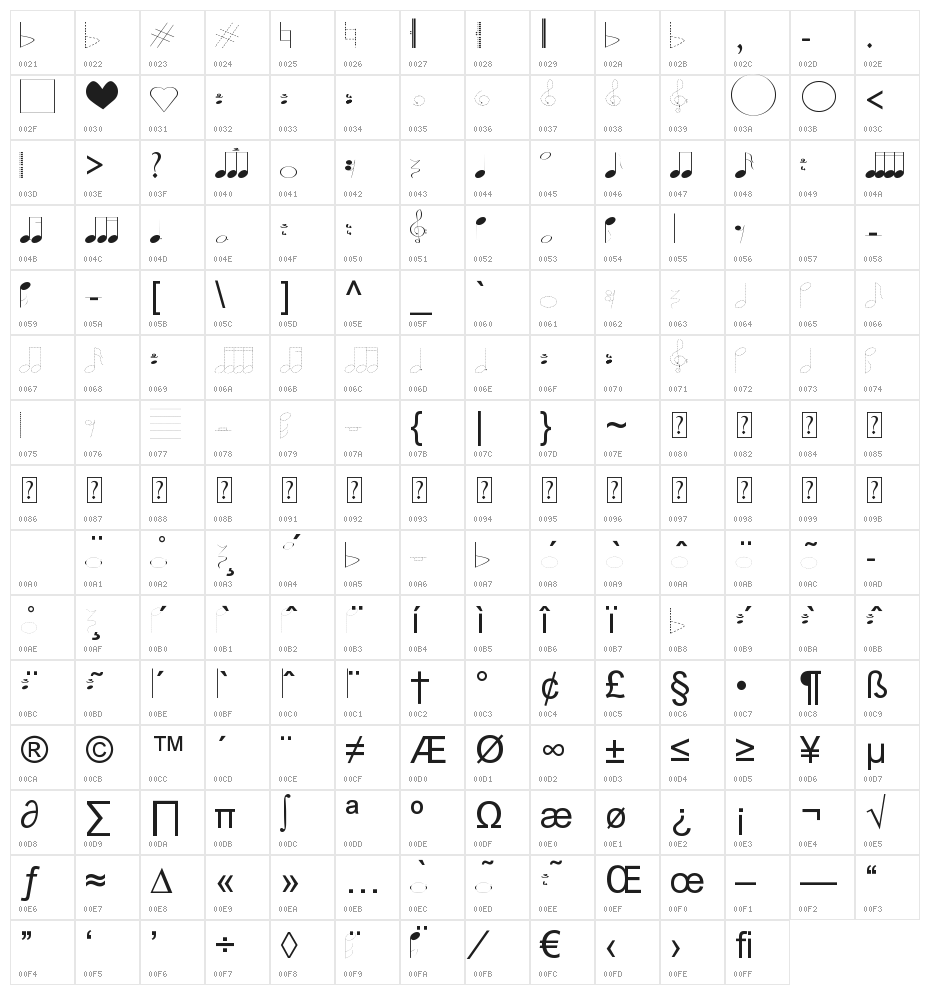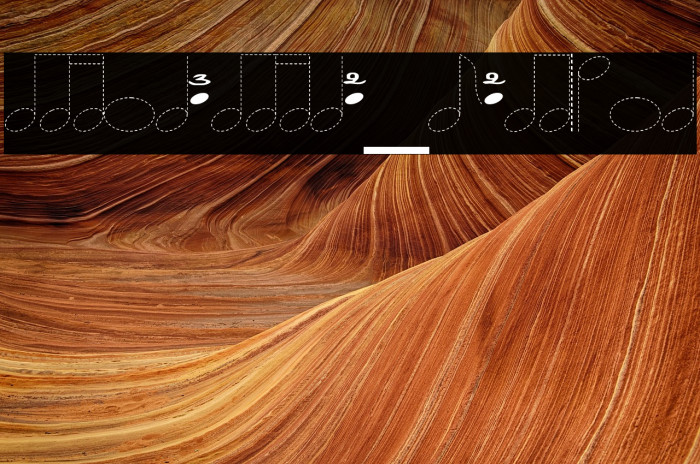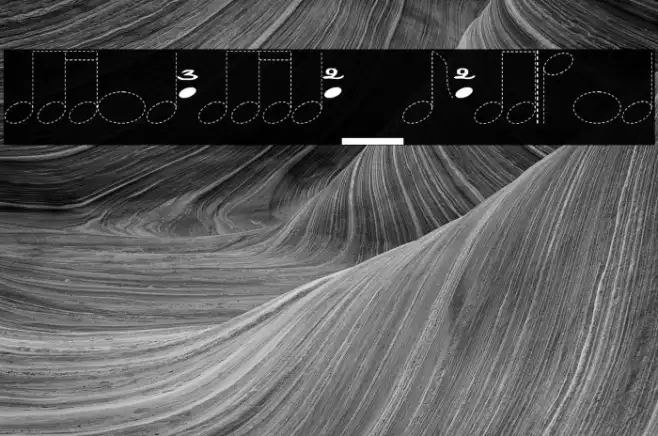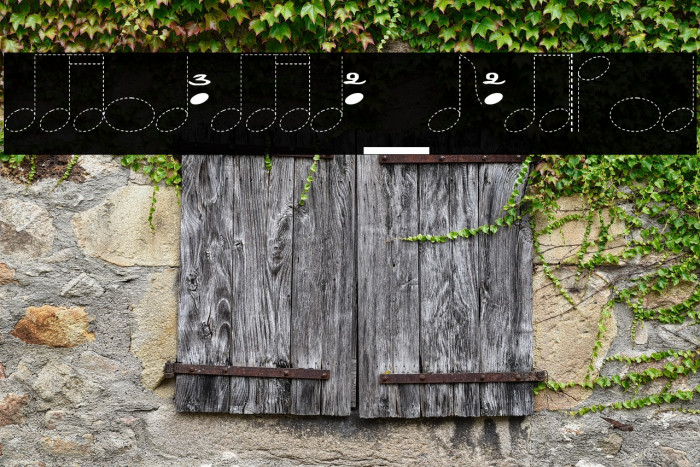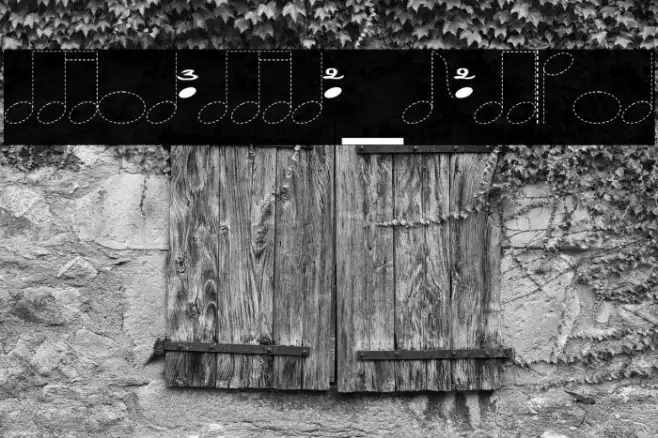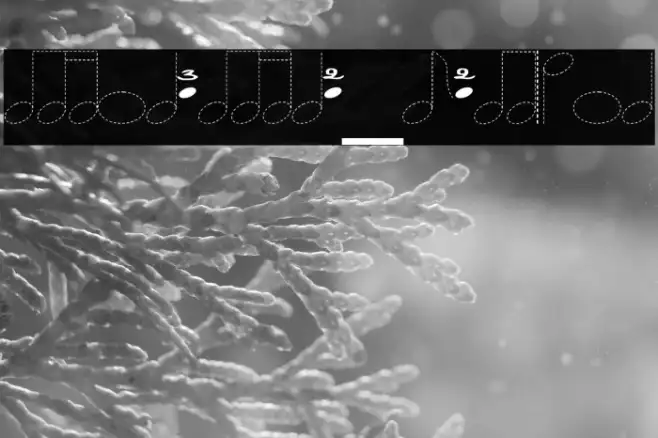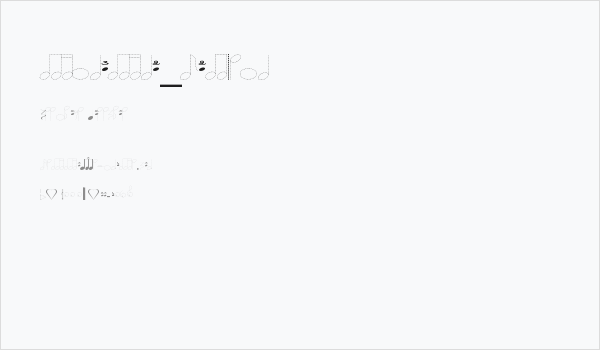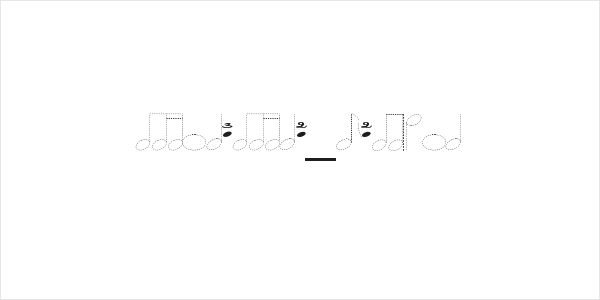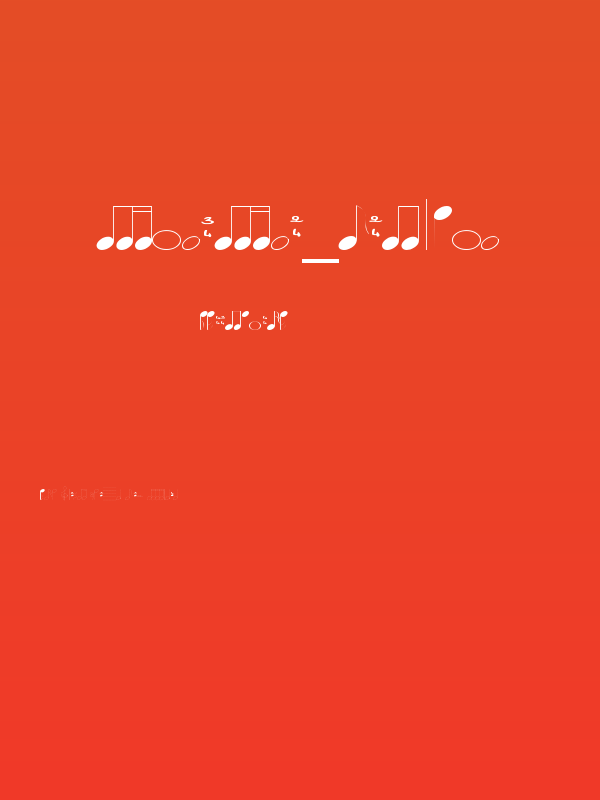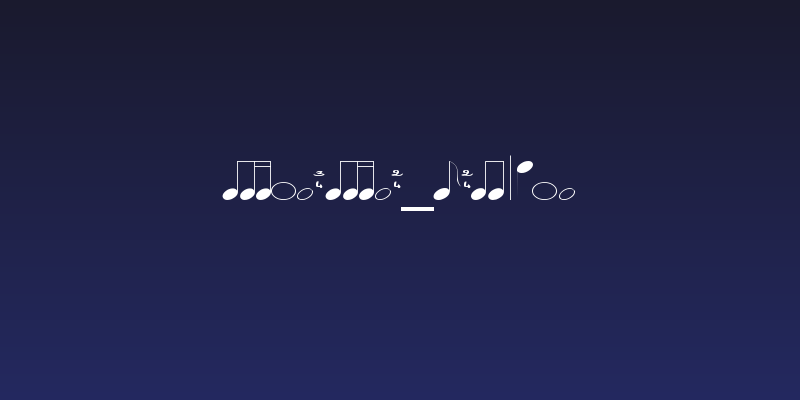
lasolsi_figuras Font
lasolsi_figuras Description
A playful, music-themed decorative font featuring musical notes, clefs, and symbols as characters, with both solid and dashed outlines for tracing or educational use. Includes additional shapes like hearts and geometric forms, making it suitable for creative and instructional contexts.
Overall StyleDecorative, Playful, Educational
Use CaseWorksheets, Educational posters, Themed graphics
Proposed ProjectsMusic education materials, children's worksheets, posters, creative classroom resources, themed invitations.